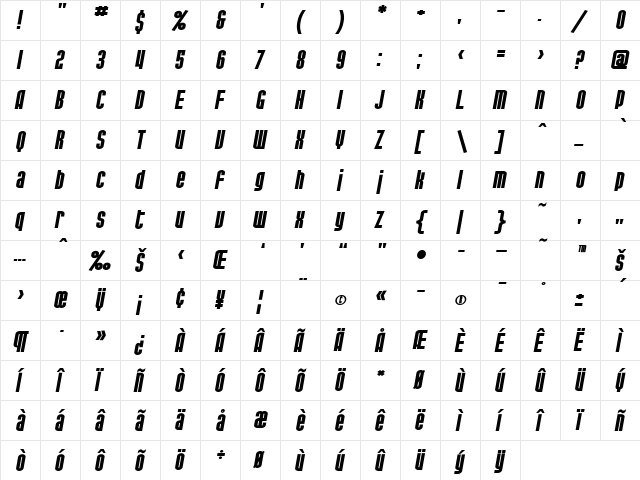
SF Port McKenzie Extended Bold Italic Font Preview
Design Context for SF Port McKenzie Extended Typeface
SF Port McKenzie Extended takes a measured approach to typography — its balanced proportions and neutral character make it a reliable workhorse for both digital and print work. Its italic angle brings a sense of urgency and motion to the letterforms. Its bold stroke weight gives it real presence on the page.
Pro Tip: Try SF Port McKenzie Extended for annotation and caption copy alongside an upright companion — the contrast in angle creates a dynamic but ordered typographic system.